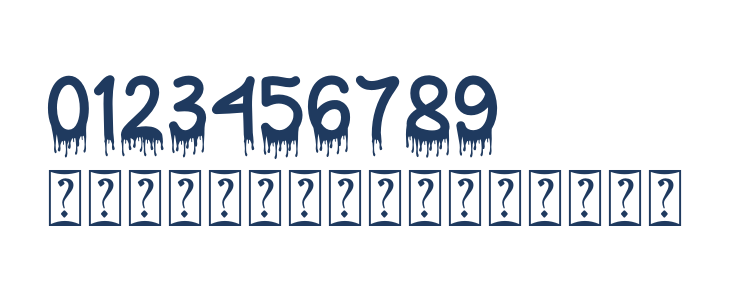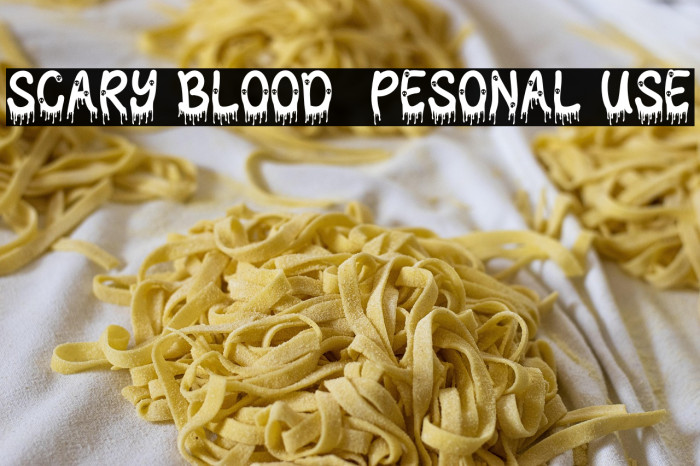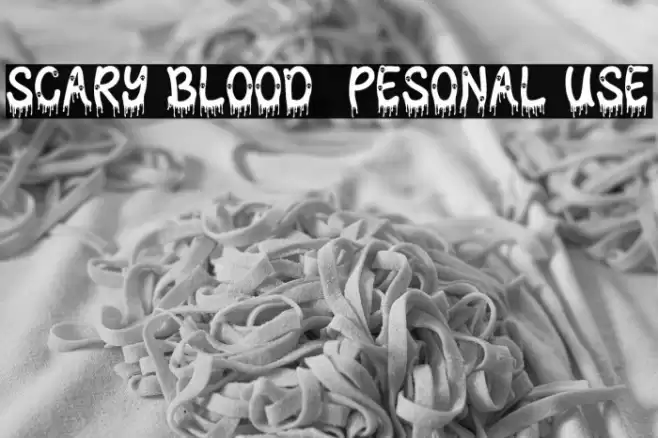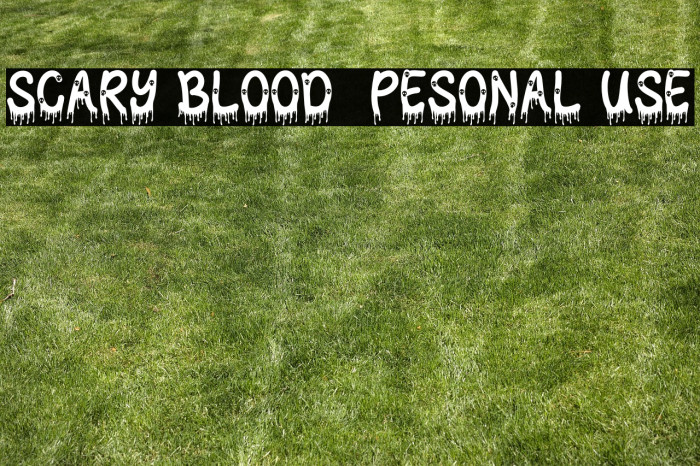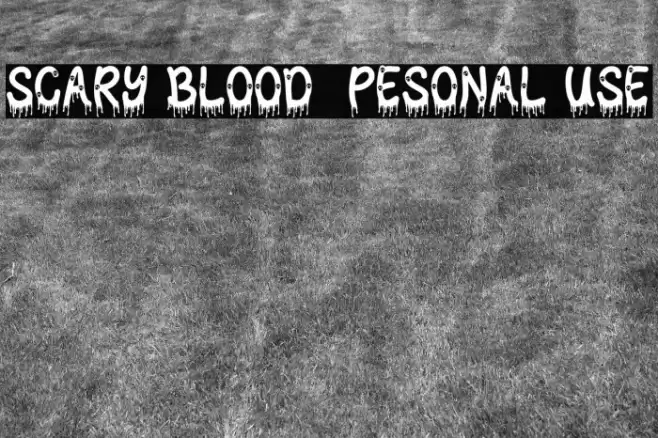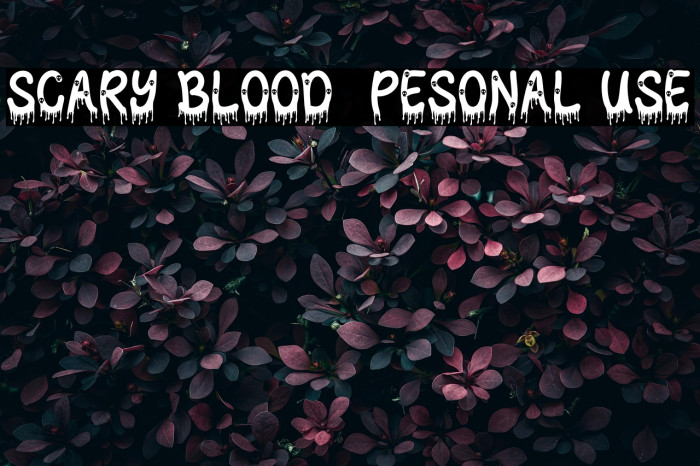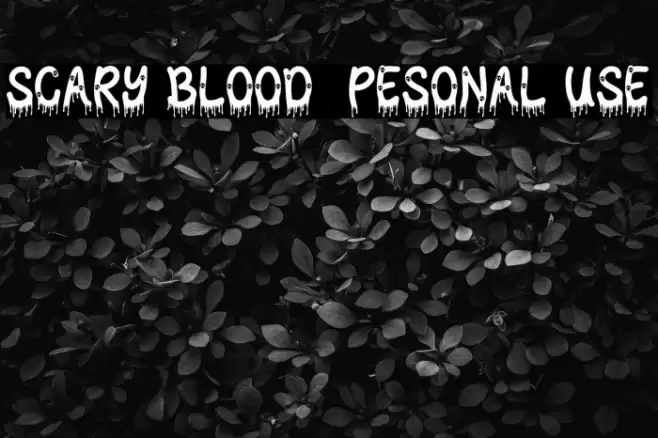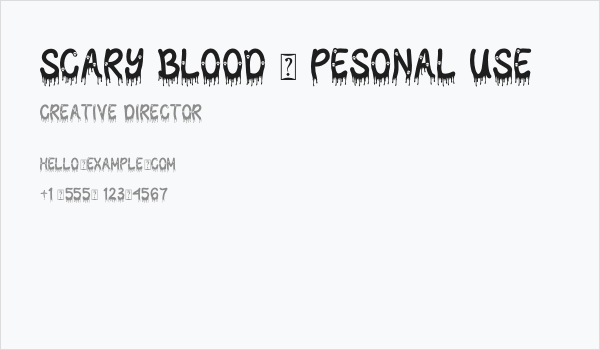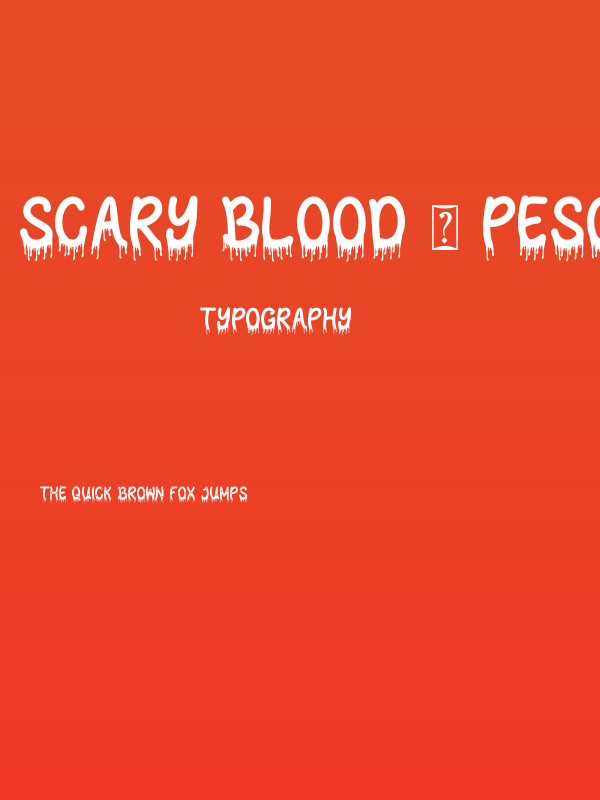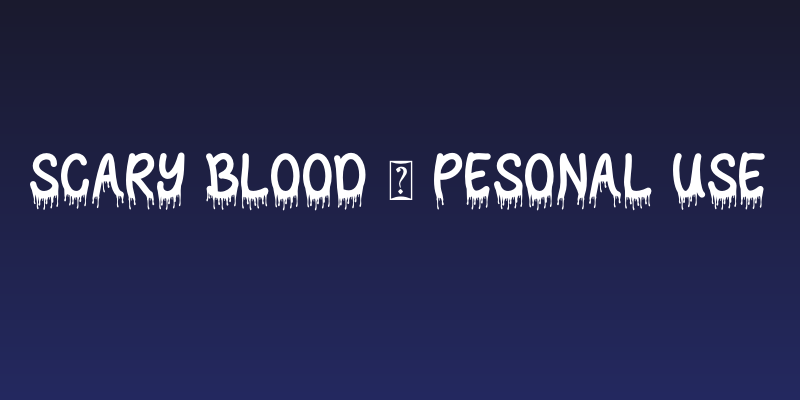
Scary Blood - Pesonal Use Font
Scary Blood - Pesonal Use Description
This font features a chilling, dripping effect reminiscent of blood or slime, making it perfect for horror-themed designs. The uppercase and lowercase letters are bold and dramatic, with elongated strokes that appear to be melting or dripping. Numbers and special characters follow the same eerie style, enhancing the overall spooky aesthetic. The font's unique design elements, such as the irregular edges and dripping extensions, create a sense of movement and fluidity, adding to its unsettling appearance. Ideal for Halloween projects, horror movie posters, or any design that requires a touch of the macabre.
Use CaseHeadlines, Posters, Logos
Proposed ProjectsIdeal for Halloween invitations, horror movie posters, haunted house flyers, or spooky-themed merchandise.